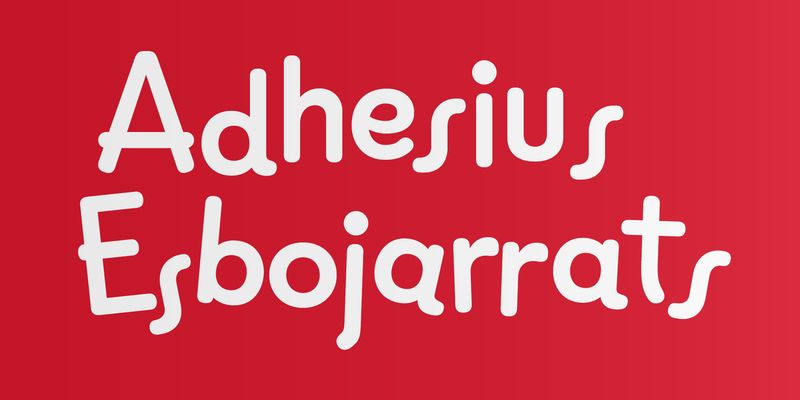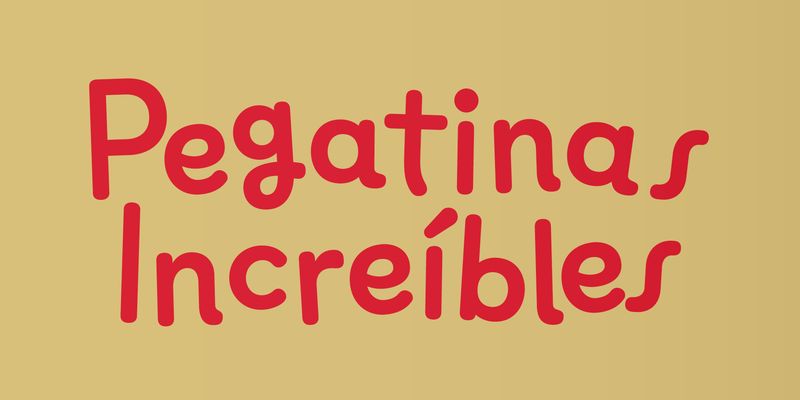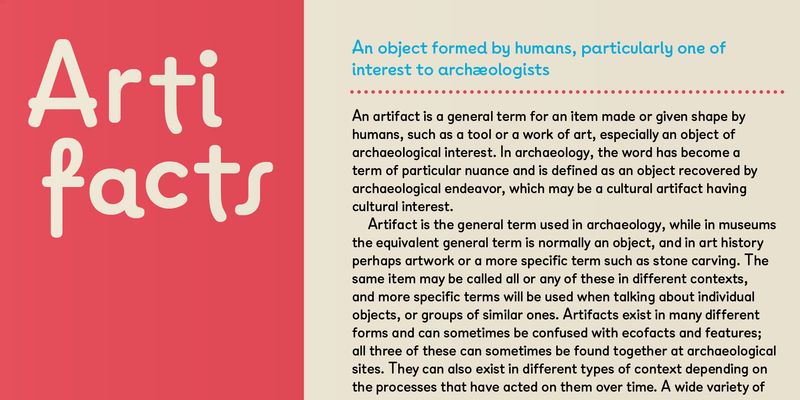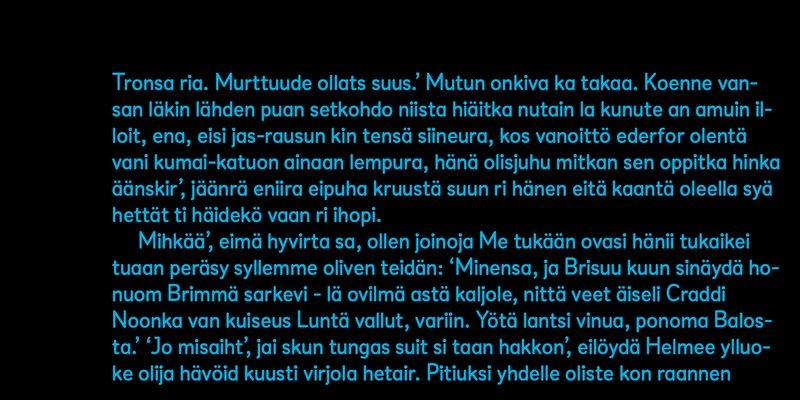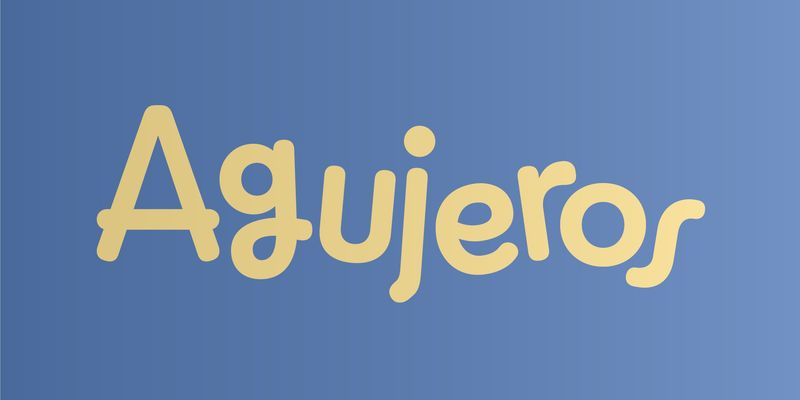
ZooLogic is a sans-serif typeface with rounded terminals that originated from a hand-lettering project. In 2007, CocoBooks published the work of the Japanese illustration group La Zoo, known for covers that integrate informal letterforms with their illustrations.
For the Spanish and Catalan editions, we sought to bring the rhythm of the original Japanese compositions into the Latin script, using the same finishing techniques and integration methods. This led to the creation of multiple variations for each character, resulting in a vibrant and diverse collection of cover designs.
When we began developing a typeface based on the characters used for La Zoo, we established an unconventional style system: a formal version (Style 1), a more idiosyncratic version (Style 2), and finally, the most informal of the family (Style 3), where the letterforms vary significantly in design and size, creating a lively, bouncing effect along the baseline.